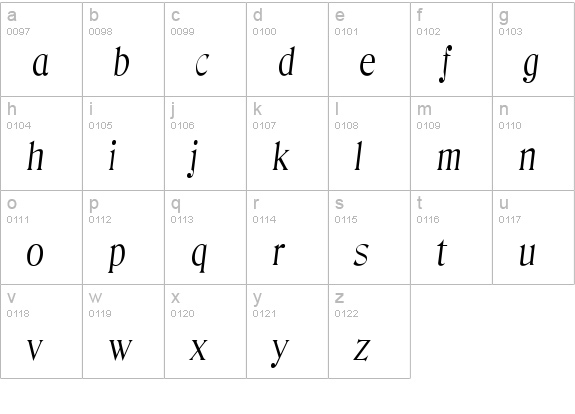
Denver-LightIta is a sleek and modern font that exudes elegance and sophistication. With its delicate and slender letterforms, this typeface is perfect for creating a refined and polished look in your designs. The thin strokes and graceful curves of Denver-LightIta add a touch of sophistication to any project, making it ideal for logos, branding, and editorial design. What makes Denver-LightIta even more appealing is that it is available for free download at FontsMarket.com. This means you can easily access this beautiful font and incorporate it into your projects without any cost. Whether you are a professional designer looking for a new addition to your font collection or a casual user in need of a stylish typeface for personal projects, Denver-LightIta is the perfect choice. Download it today and elevate your designs with this elegant and versatile font.